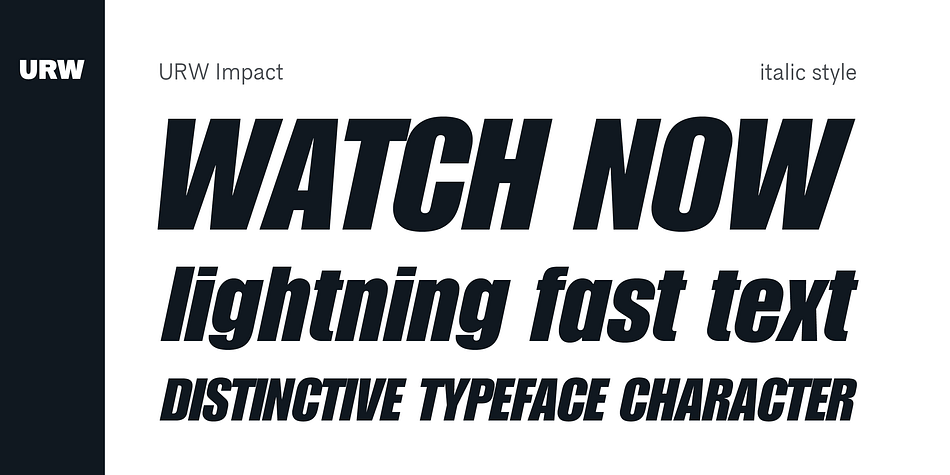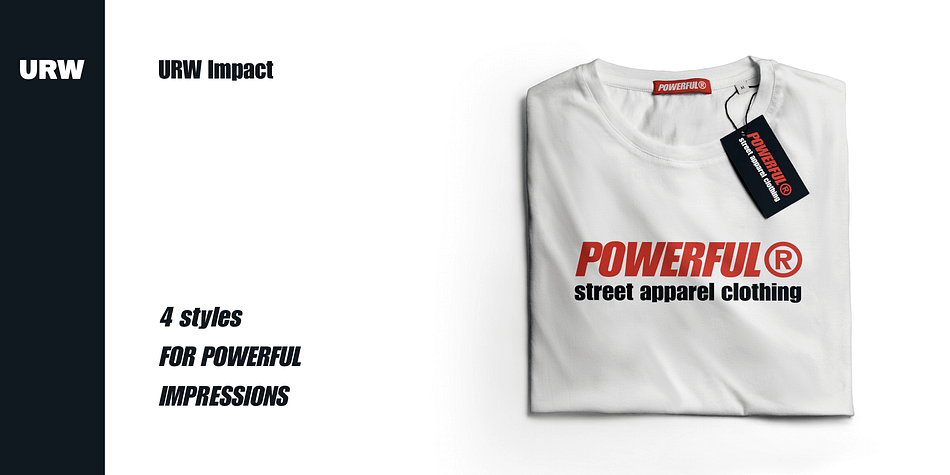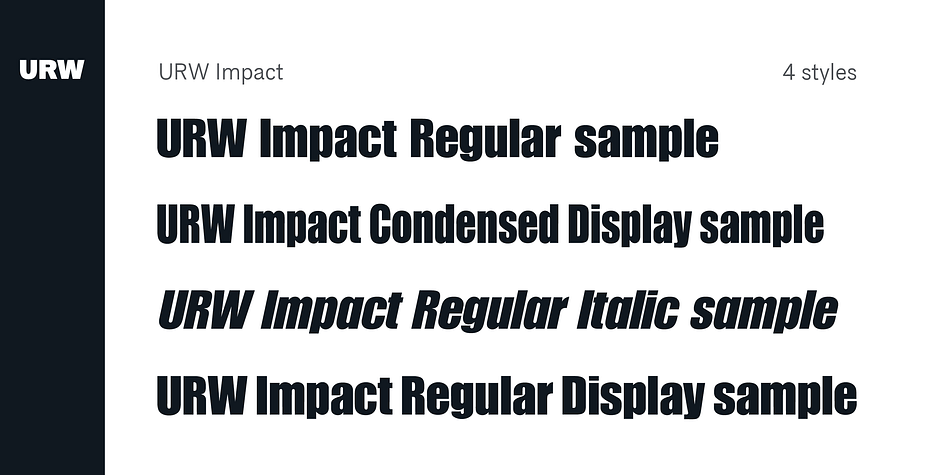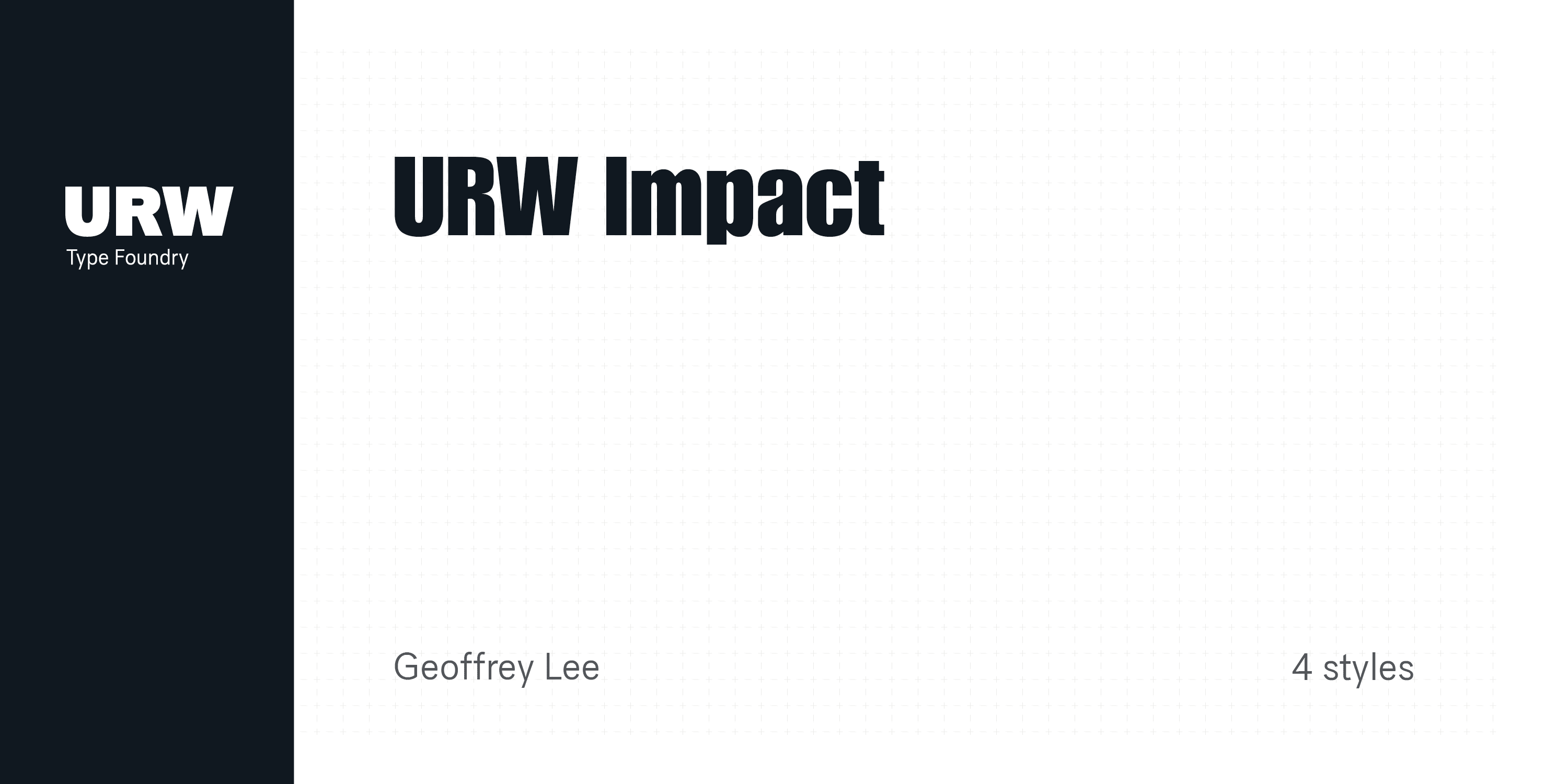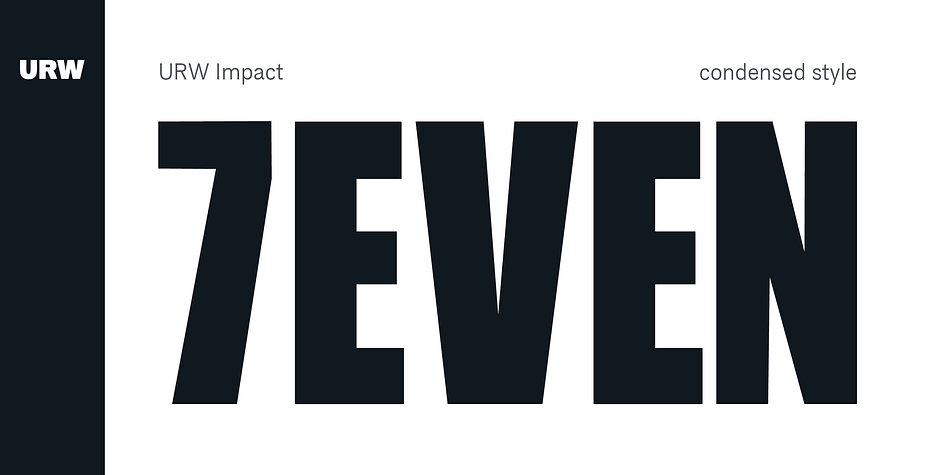
Designed by Geoffrey Lee, URW Impact is a display sans font family. This typeface has four styles and was published by URW Type Foundry.
The impact typeface was originally designed by the English designer Geoffrey Lee in 1965. Ultra-thick strokes, compressed letter spacing, a very high x-height and minimal counters make this font ideal for a strong headlines. Writing in 2004 Lee explained that the design goal was “to get as much ink on paper as possible in a given size with the maximum possible x-height”.
Impact still remains a typeface with a lasting influence in type design. It is for example used for the Logo of the London based railway station St. Pancras and the Logo of the Internet Movie Data Base (IMDb).
Foundry | URW Type Foundry |
Released | 1993 |
Designer | Geoffrey Lee |